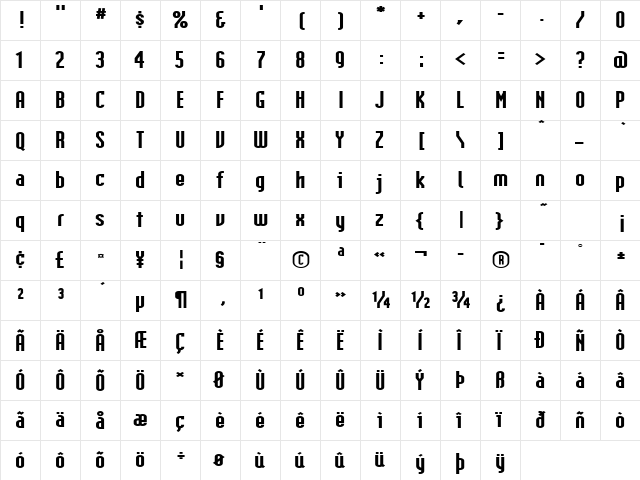
IndustrialExtended Heavy
Design Context for IndustrialExtended Typeface
IndustrialExtended offers clean, dependable letterforms without strong stylistic allegiance, making it a practical choice for designers who need flexibility.